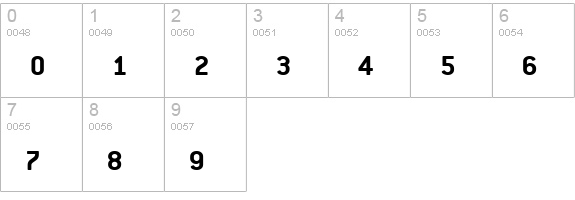
PFPremier Display Font Details
PFPremier Display font is a stunning typeface that exudes elegance and sophistication. With its sleek and modern design, this font is perfect for creating eye-catching headlines, titles, and branding materials. Its clean lines and sharp edges give it a contemporary feel that will elevate any design project. What sets PFPremier Display font apart is that it is available for free download at FontsMarket.com. This means that you can access this high-quality font without any cost, making it a valuable resource for designers, creatives, and anyone looking to add a touch of refinement to their work. Whether you're working on a website, poster, logo, or any other design project, PFPremier Display font is sure to make a bold statement. Download it for free today and take your designs to the next level with this exceptional typeface.